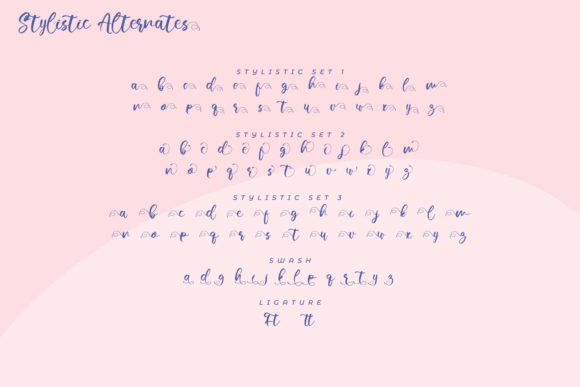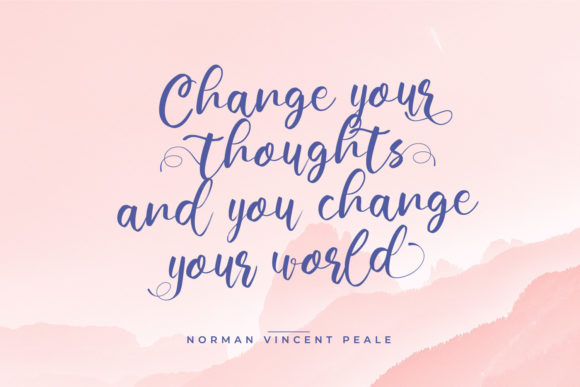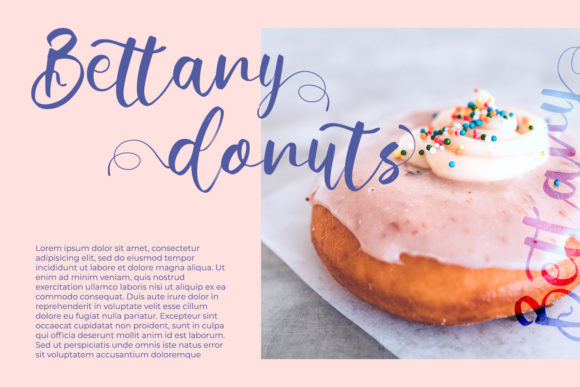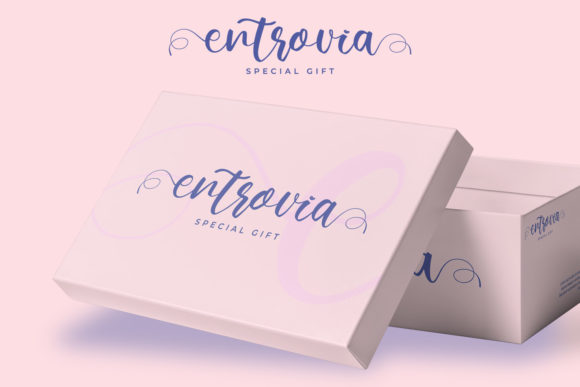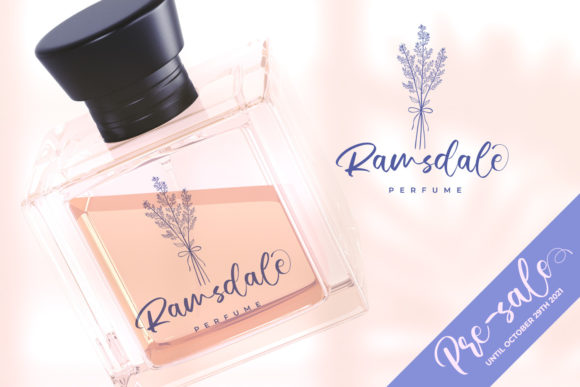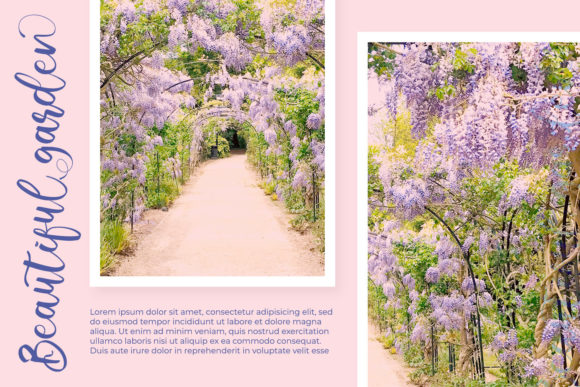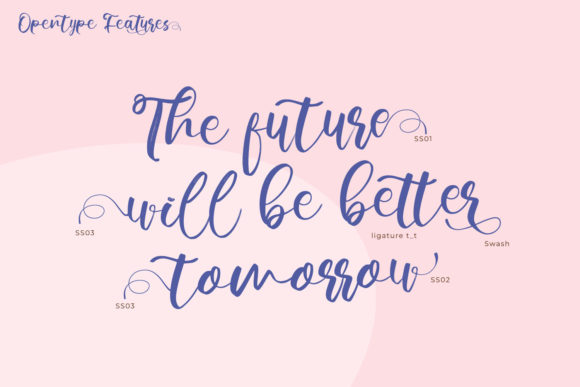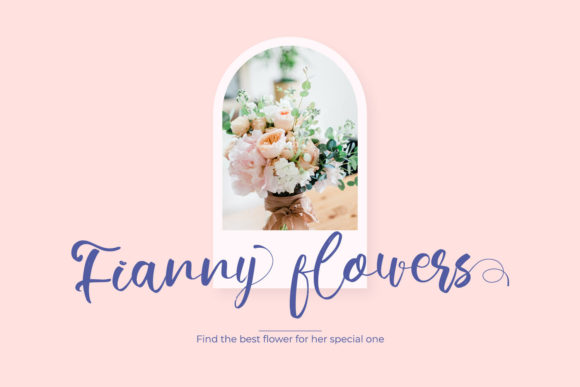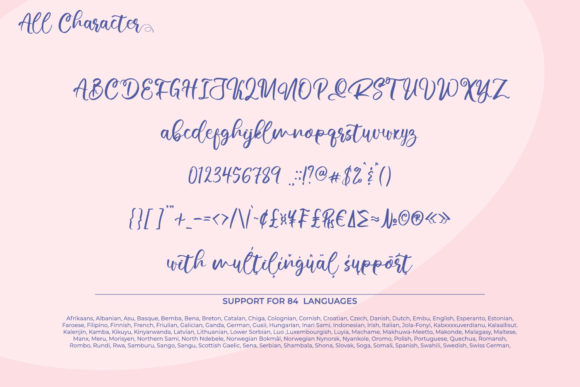
Verathrine Font
About Verathrine Font
Verathrine is a stylish and incredibly elegant script font. It looks stunning on wedding invitations, thank you cards, quotes, greeting cards, logos, business cards and more. This font is PUA encoded which means you can access all glyphs and swashes with ease!